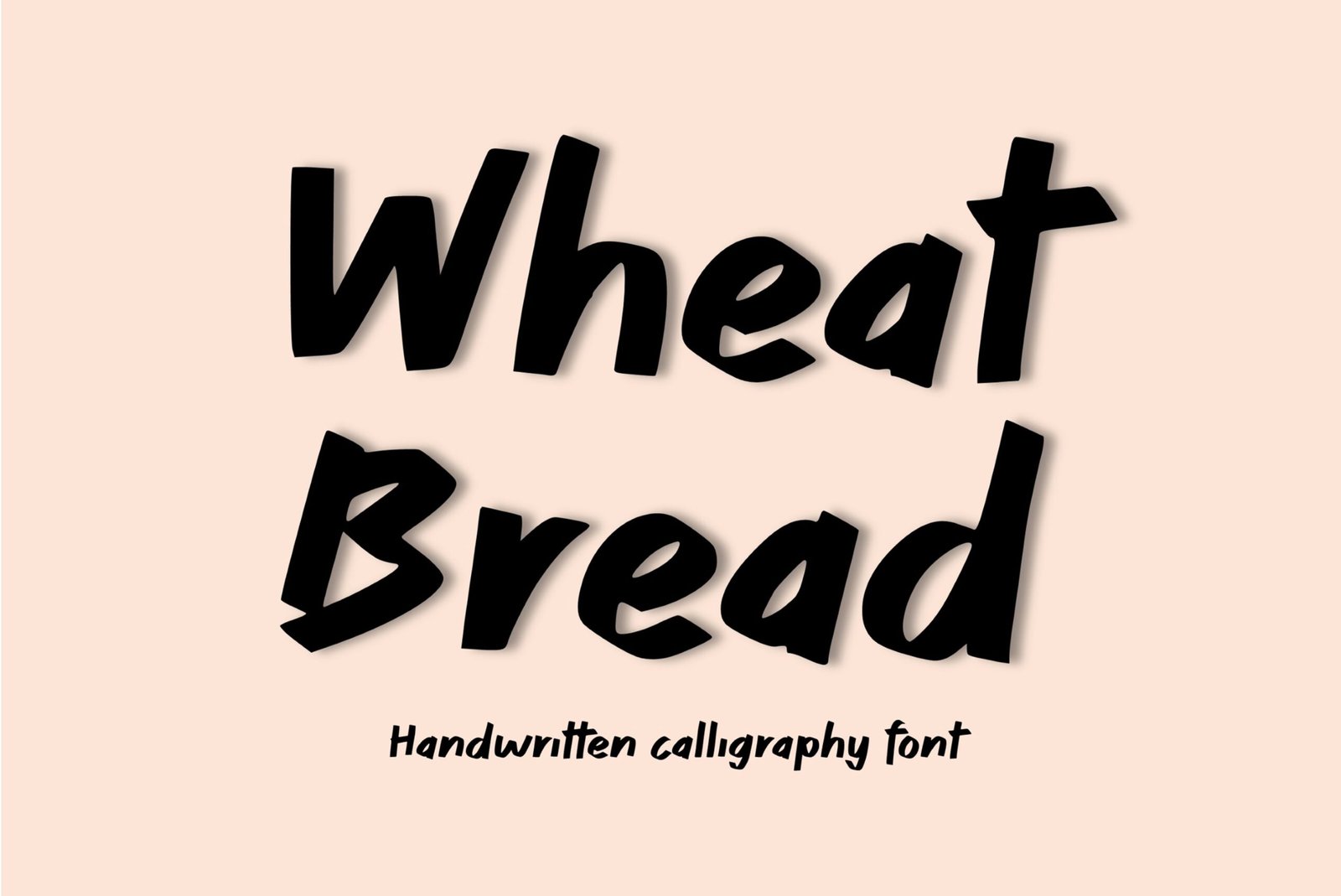
Wheat Bread Font
Handwritten calligraphy font. “Wheat Bread”. Perfect for goodnotes, note taking, advertising and display purposes, including banners, book covers, shirts, posters, logos and much more!
Font includes all upper and lowercase letters, numbers, characters, and punctuation.